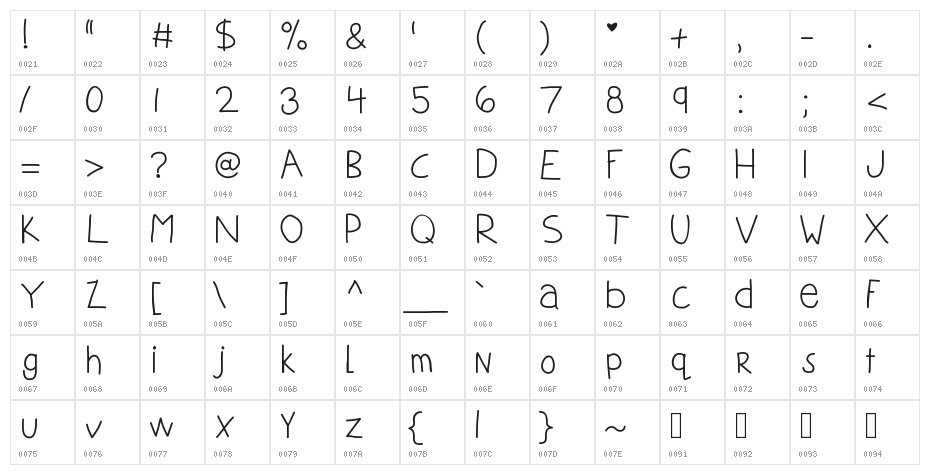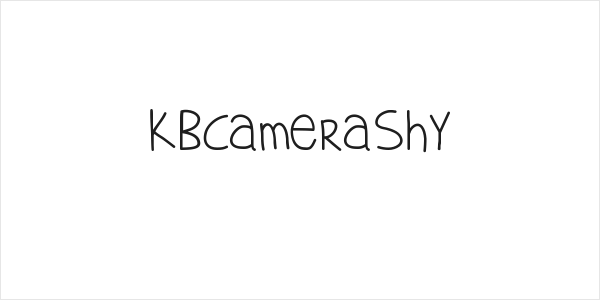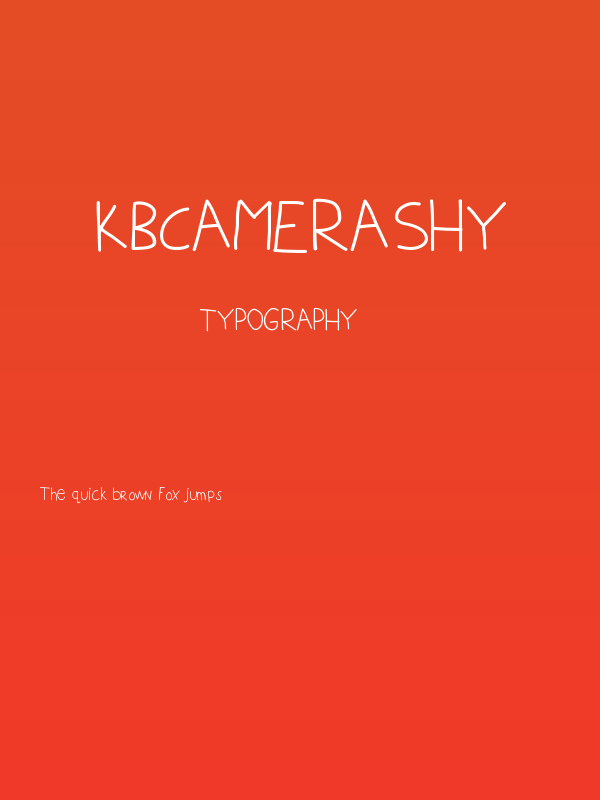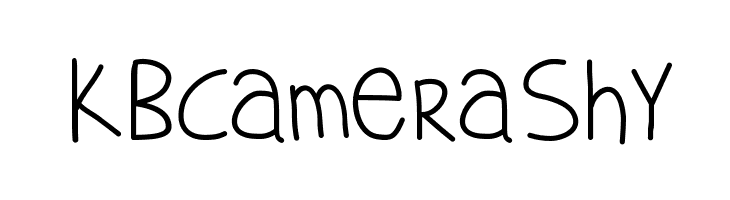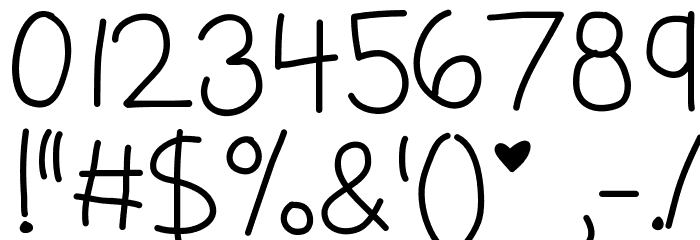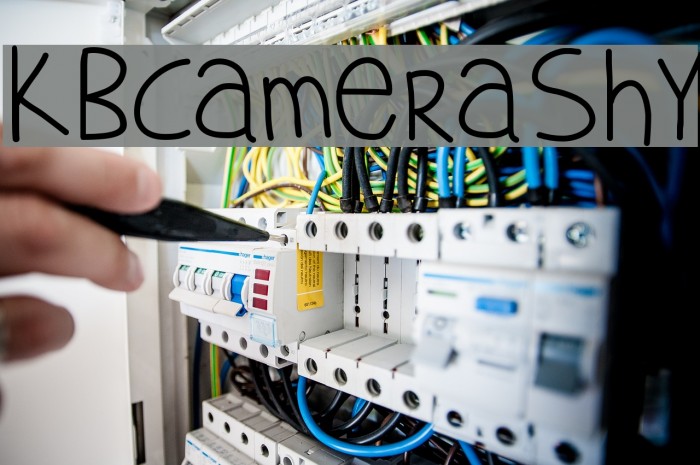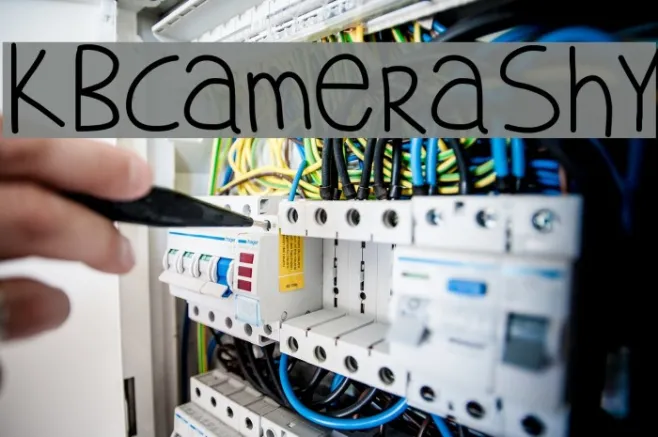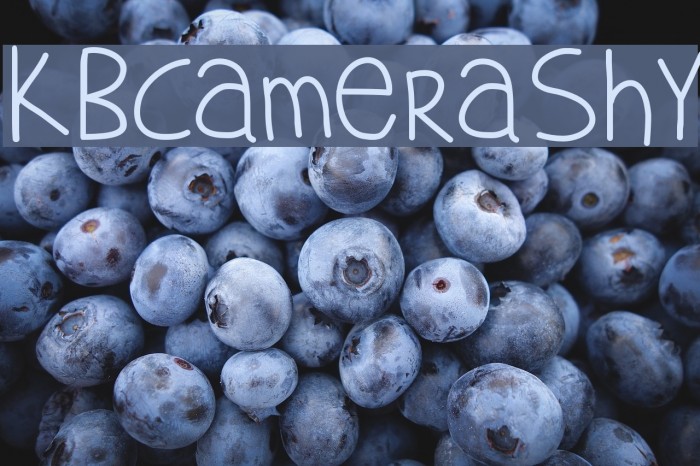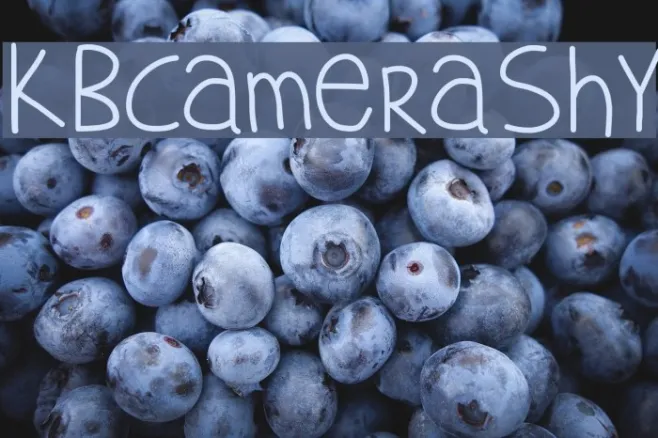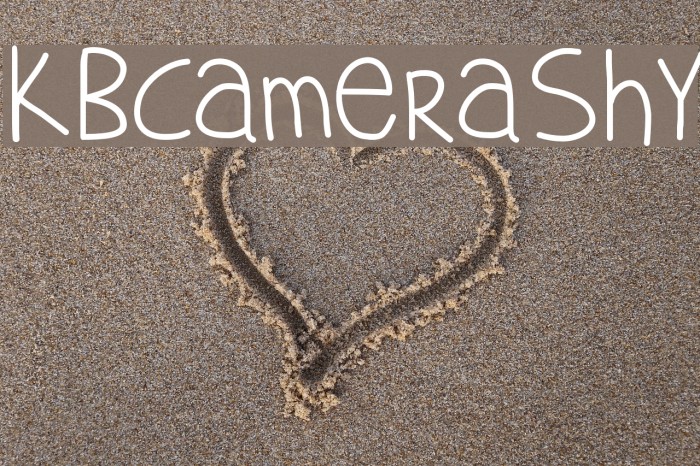
KBCameraShy Font
KBCameraShy Description
This playful and whimsical font features a hand-drawn aesthetic with irregular, slightly wobbly lines that give it a casual and friendly appearance. The characters are rounded and uneven, with a consistent stroke width that maintains a uniform look across both uppercase and lowercase letters. The numbers and special characters follow the same playful style, making the font suitable for informal and creative projects. Its unique charm lies in its imperfect, human-like touch, which adds personality and warmth to any design.
| Proposed Projects | Ideal for children's books, greeting cards, playful branding, and creative social media graphics. |